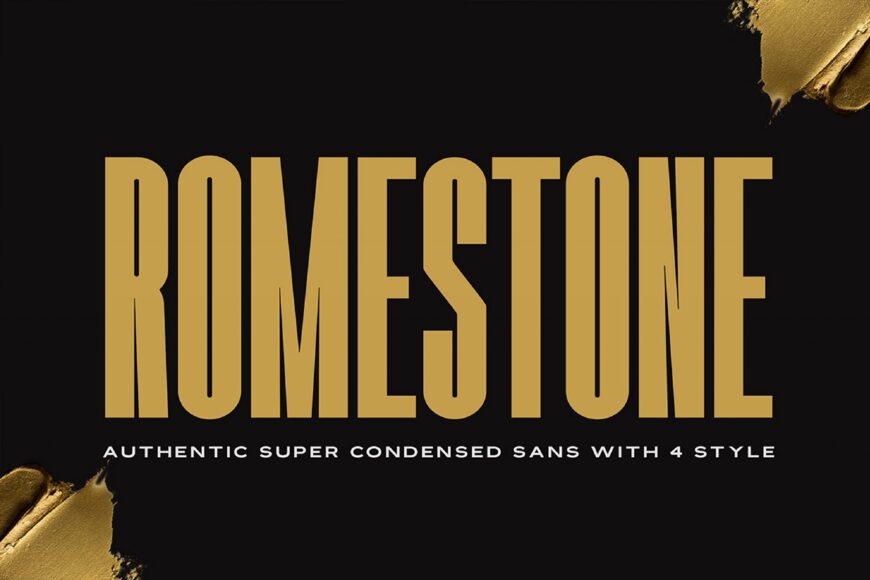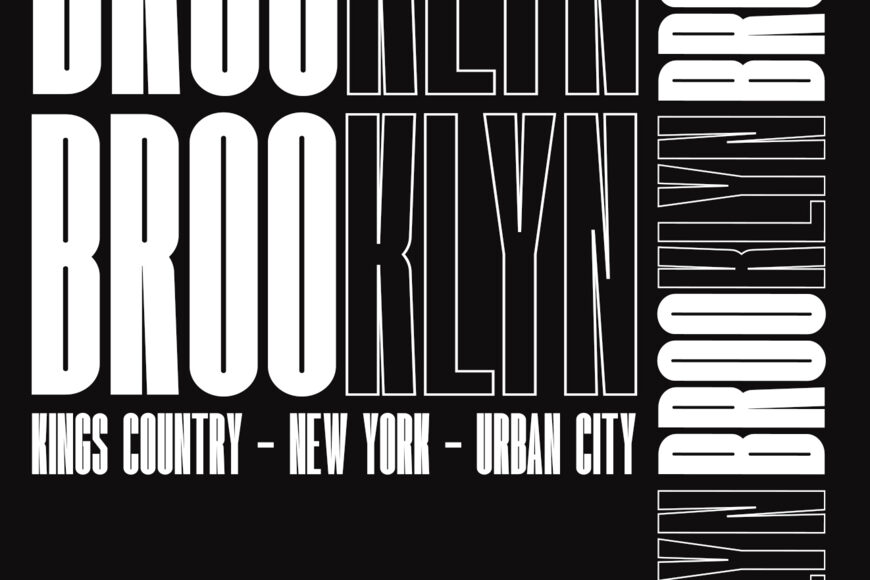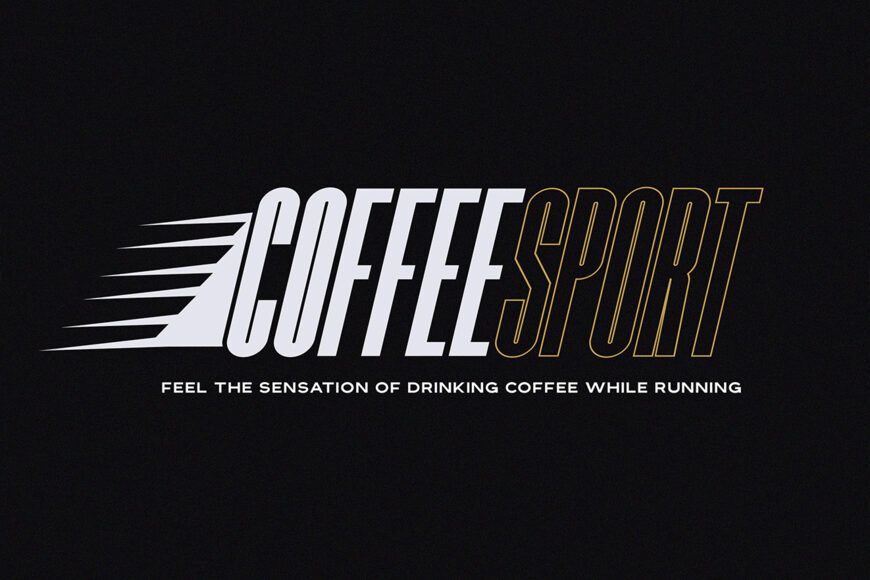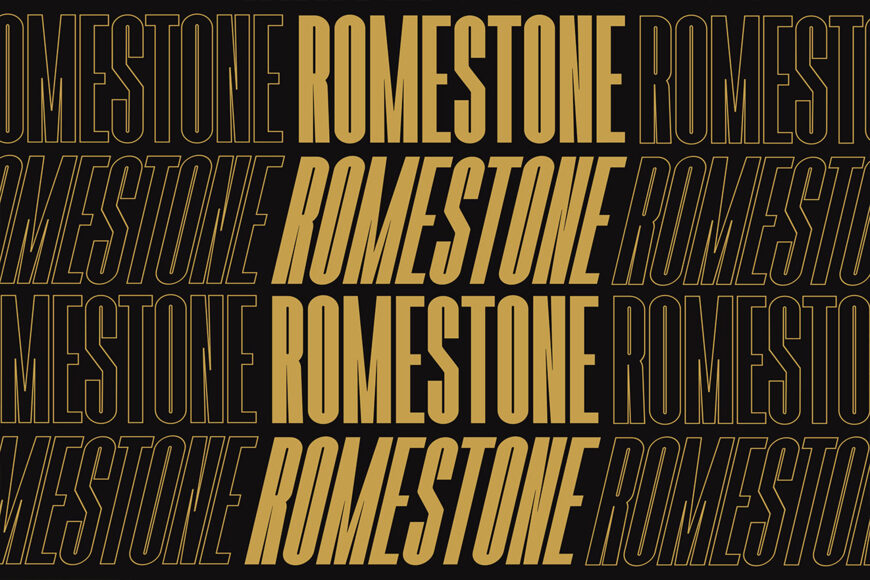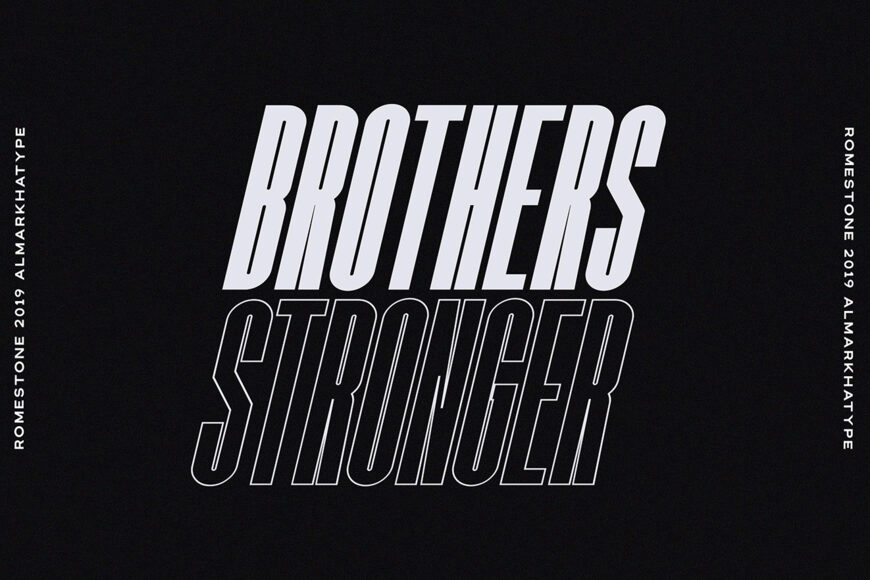
Romestone Font Family
Introducing Romestone, a bold condensed font collection featuring four styles: Regular, Italic, Outline, and Outline Italic. Designed with a strong, striking character, Romestone is perfect for headlines, typography, apparel, magazines, brochures, packaging, branding, and more. Its modern and confident look helps bring a distinctive, professional edge to any creative project.